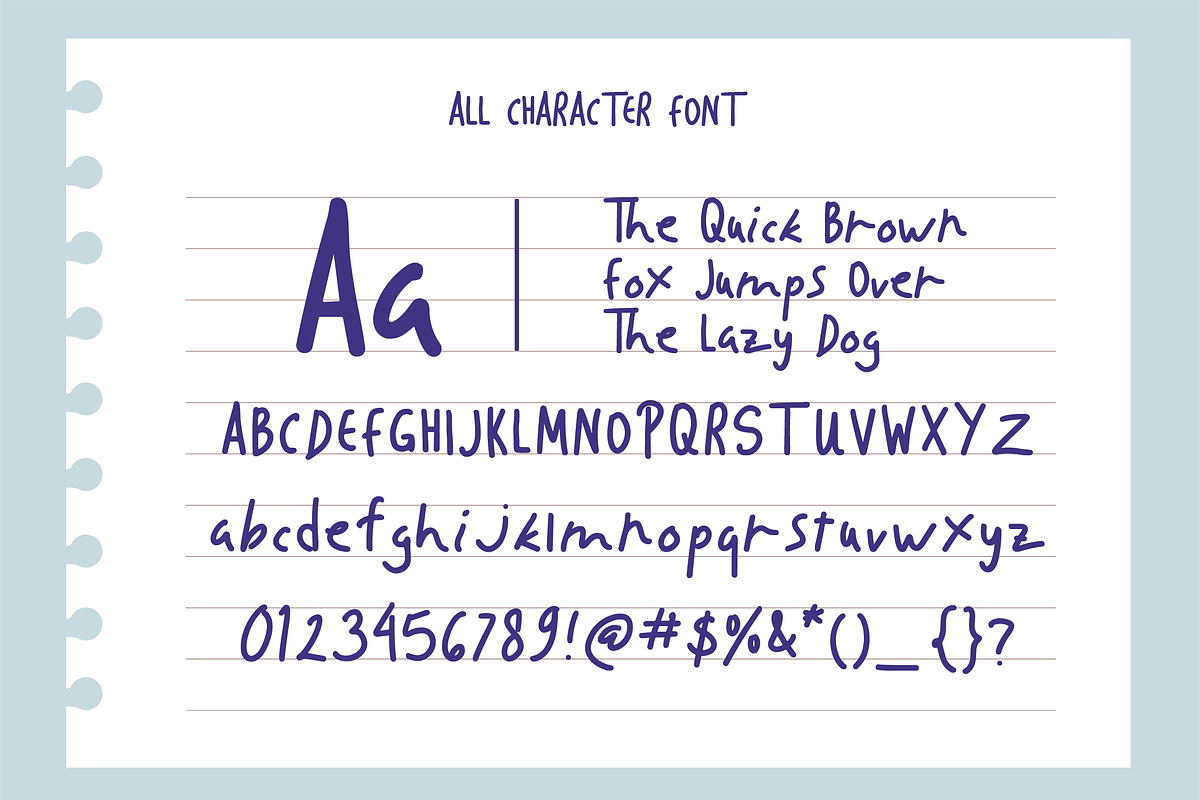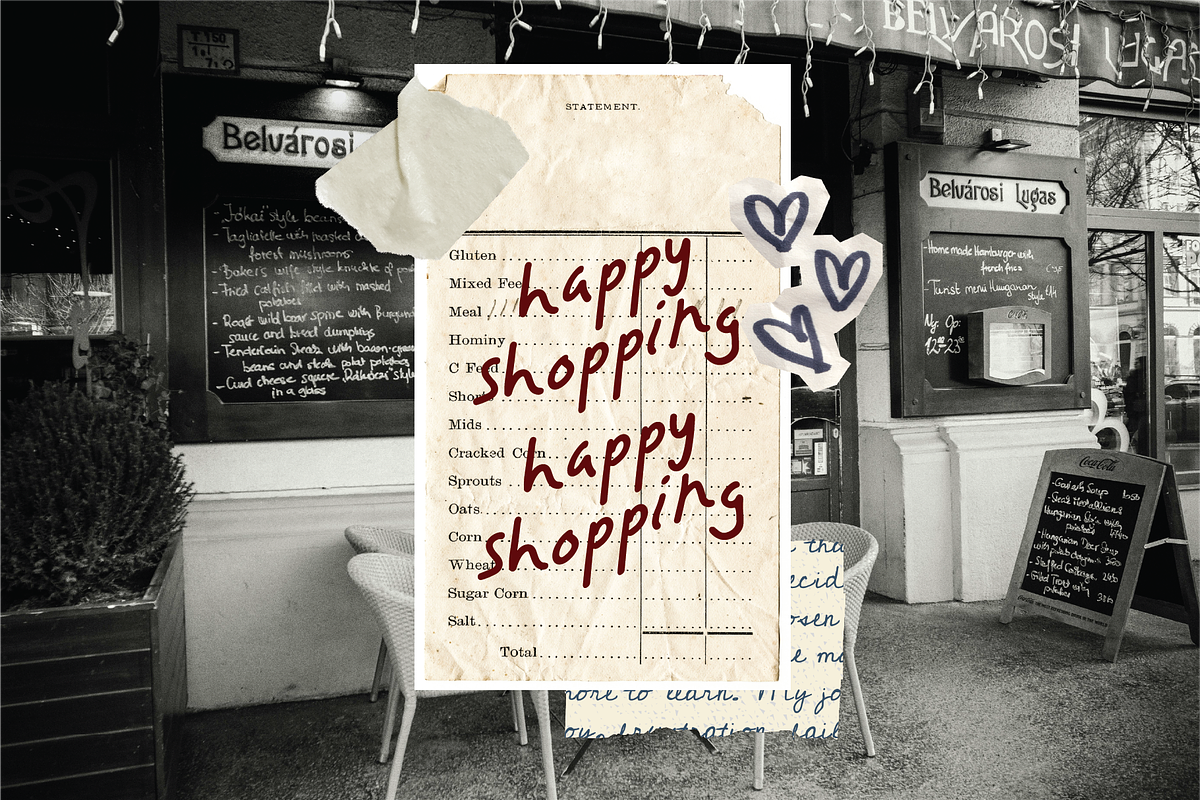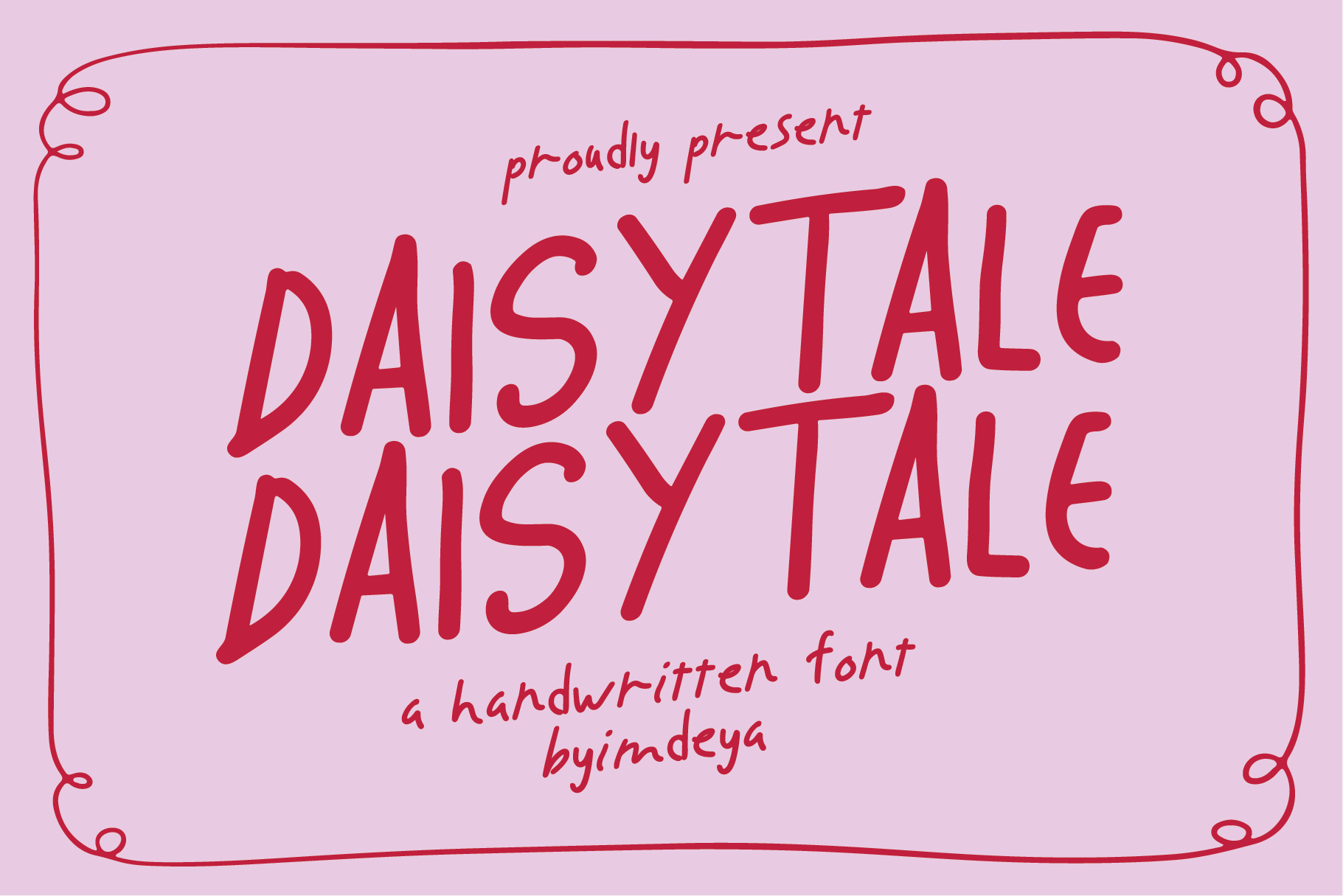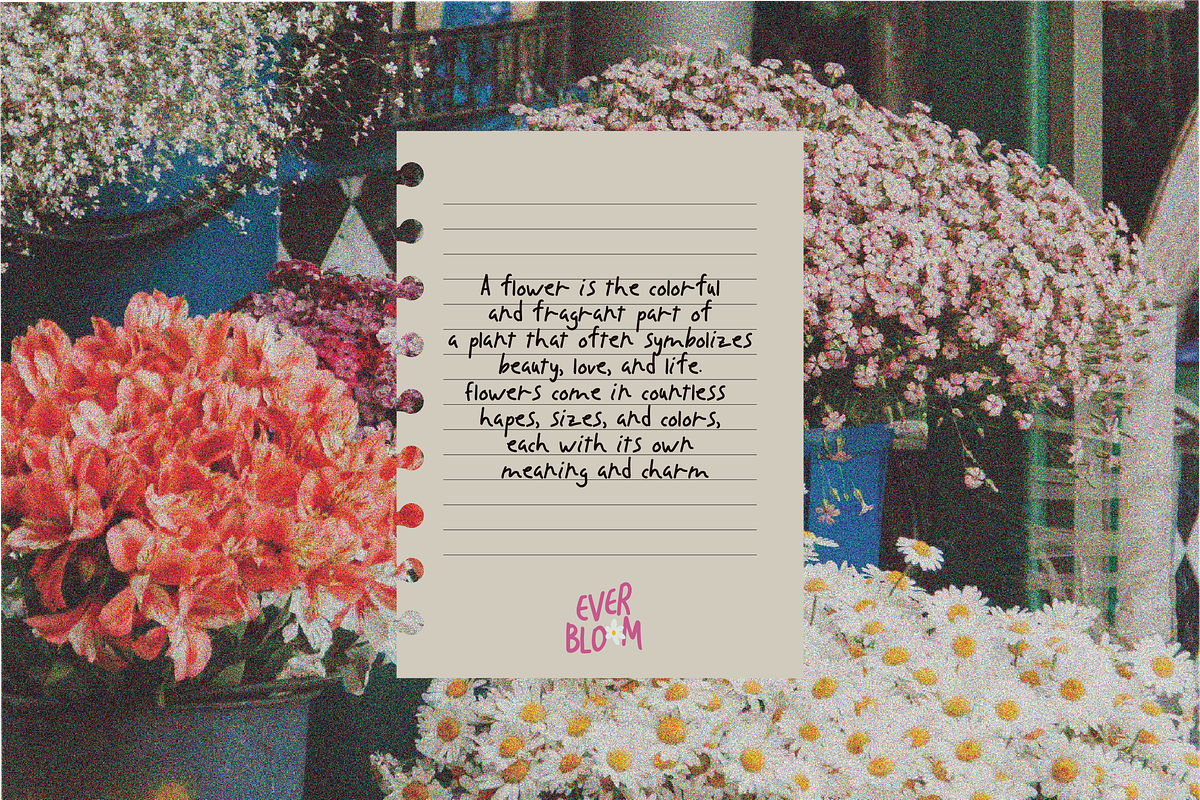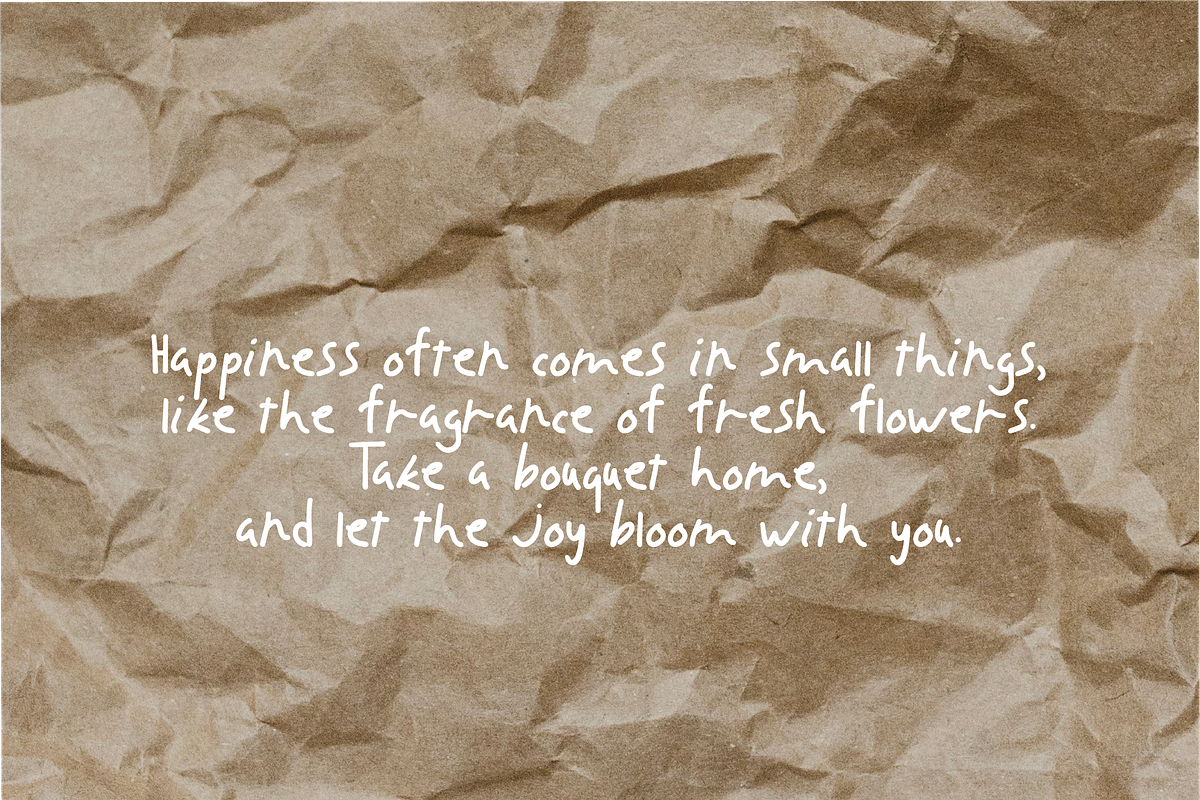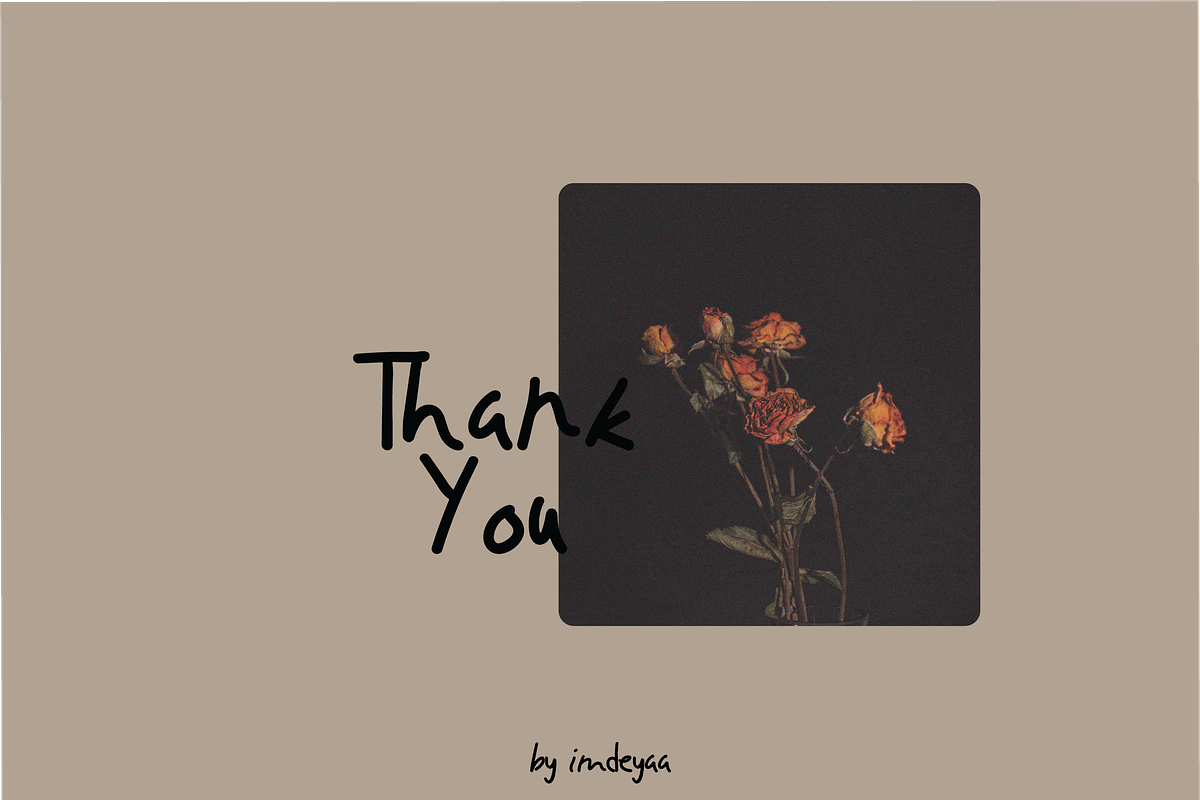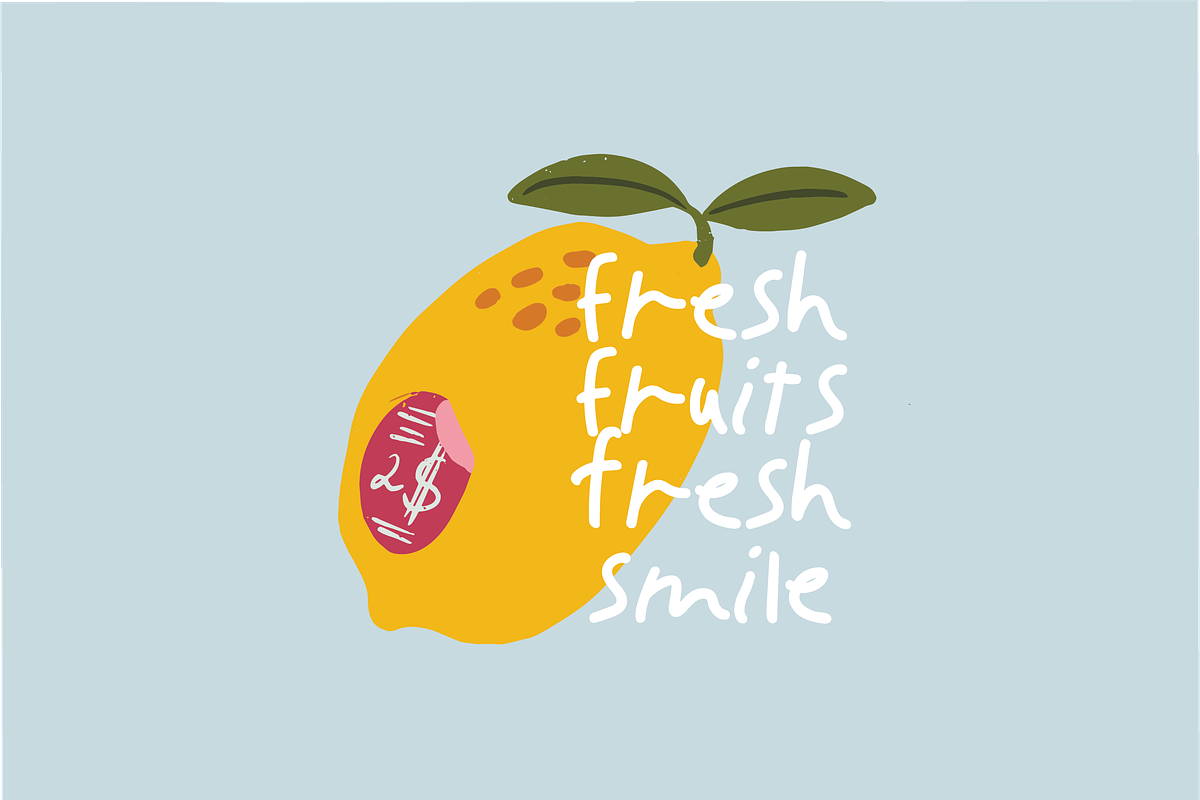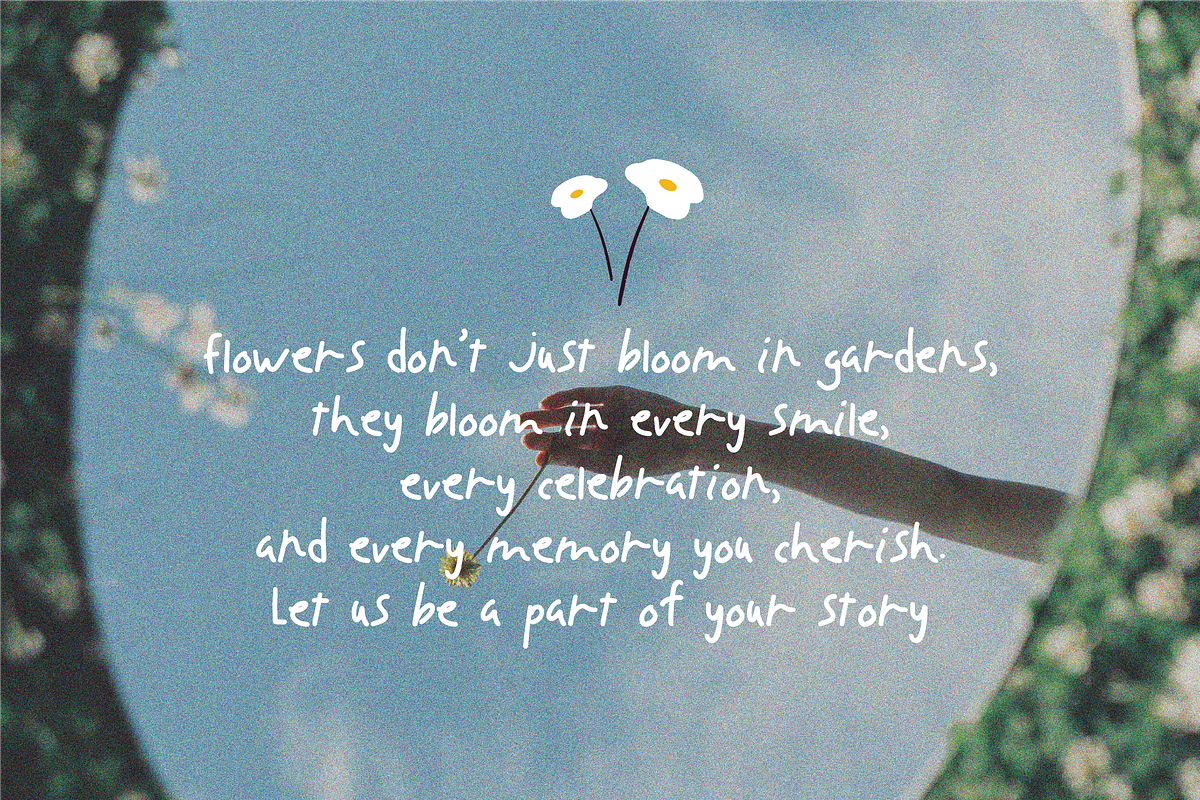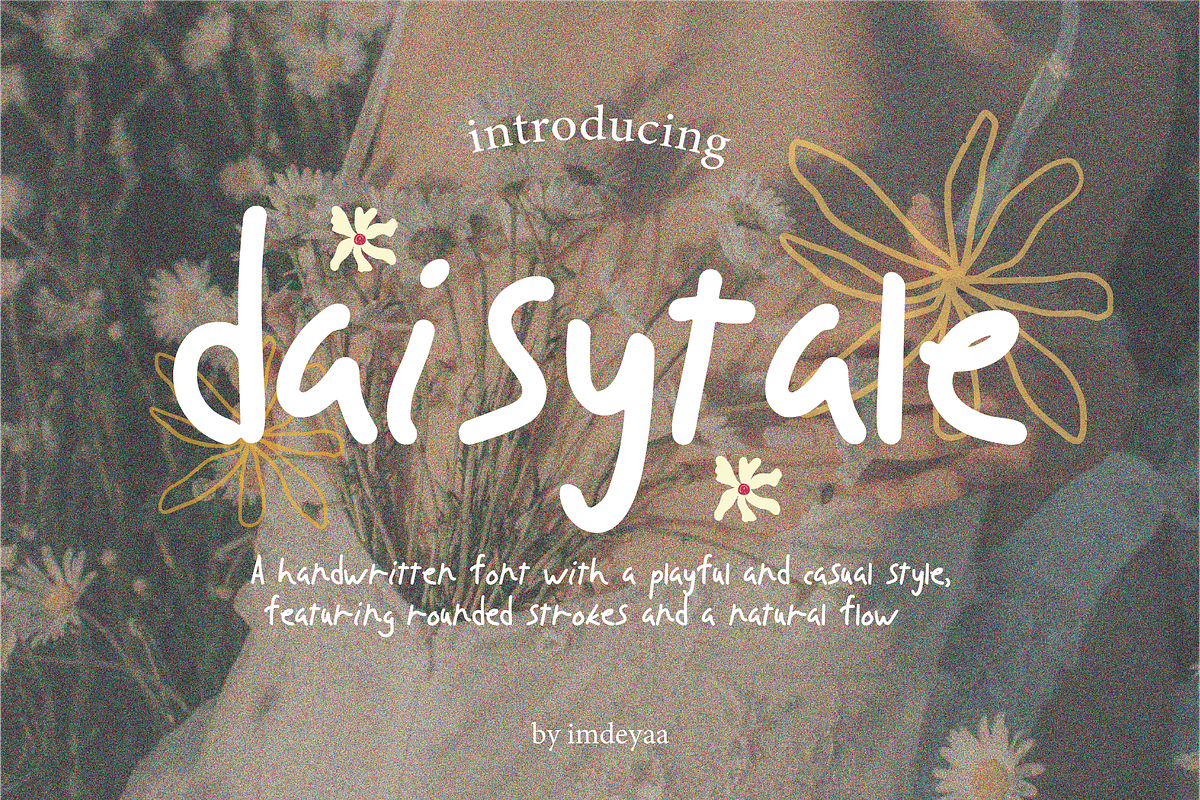
Daisytale - Playful Handwritten Font
Daisytale a playful handwritten font with a casual and friendly look. The letters have a smooth, rounded style that feels organic and natural, almost like it was written quickly with a marker or brush pen. Its imperfect charm makes it perfect for creative projects such as quotes, greeting cards, kids’ designs, and whimsical branding.